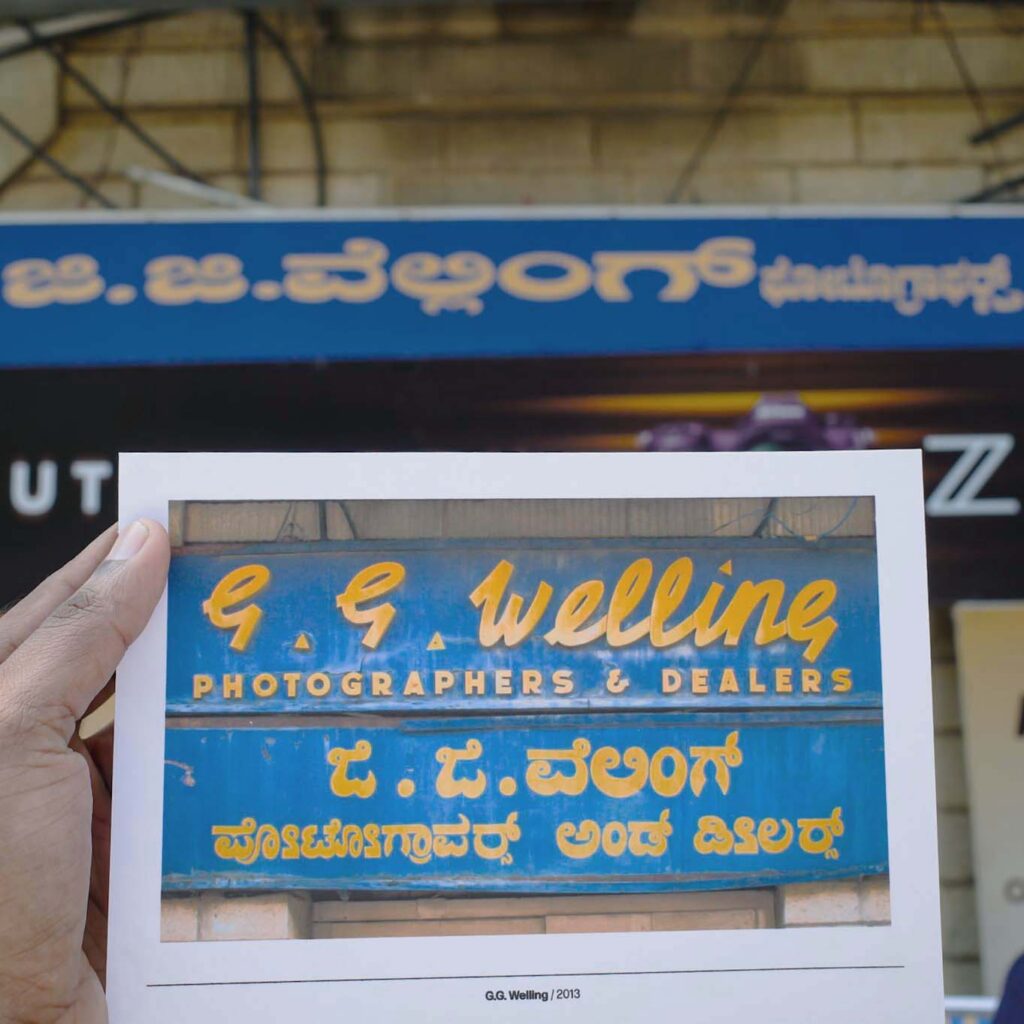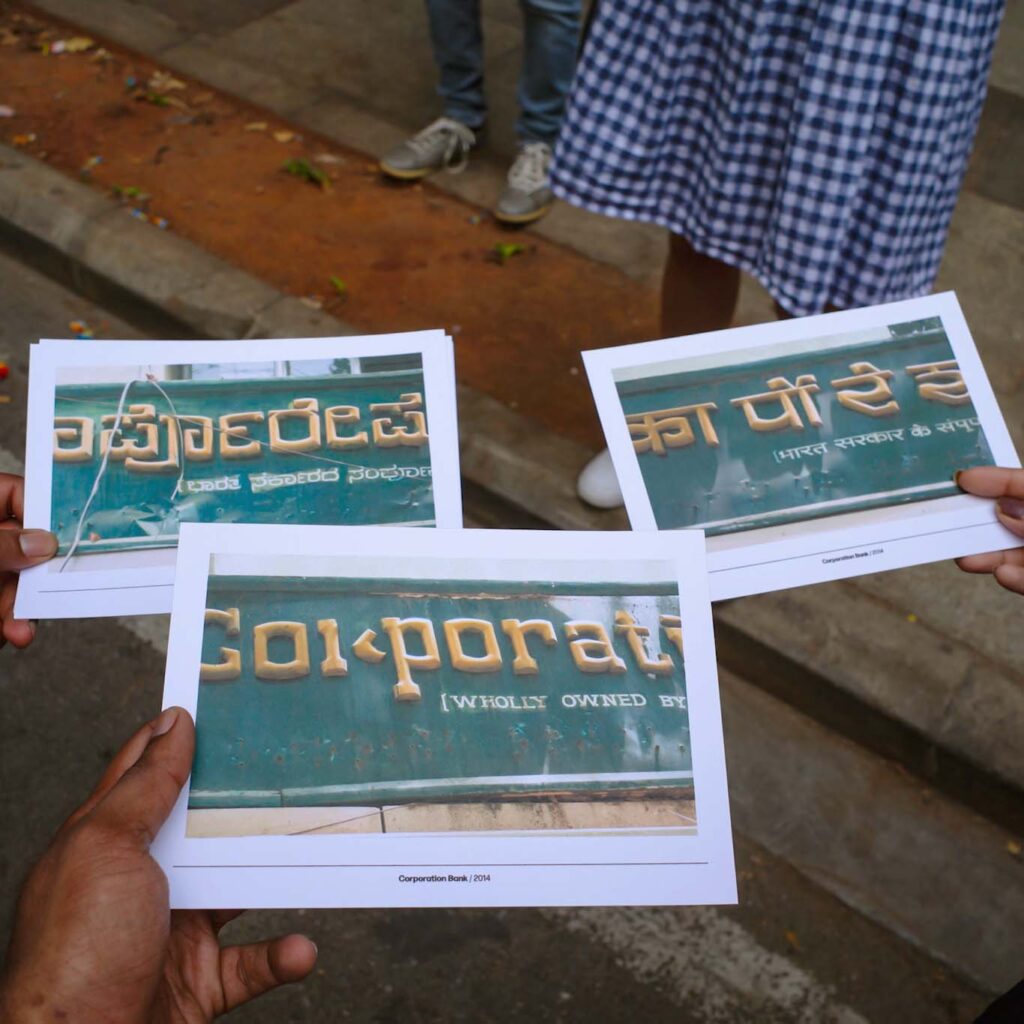
Pooja offered a type walk around M.G. Road as a special workshop experience for participants of DesignUp, a community led and volunteer driven conference for product creators, designers, makers and thought-leaders in India and SE Asia. The focus was on the changing typographic landscape of the city, and lessons for designers about making for multilingual and multiscriptual audiences.